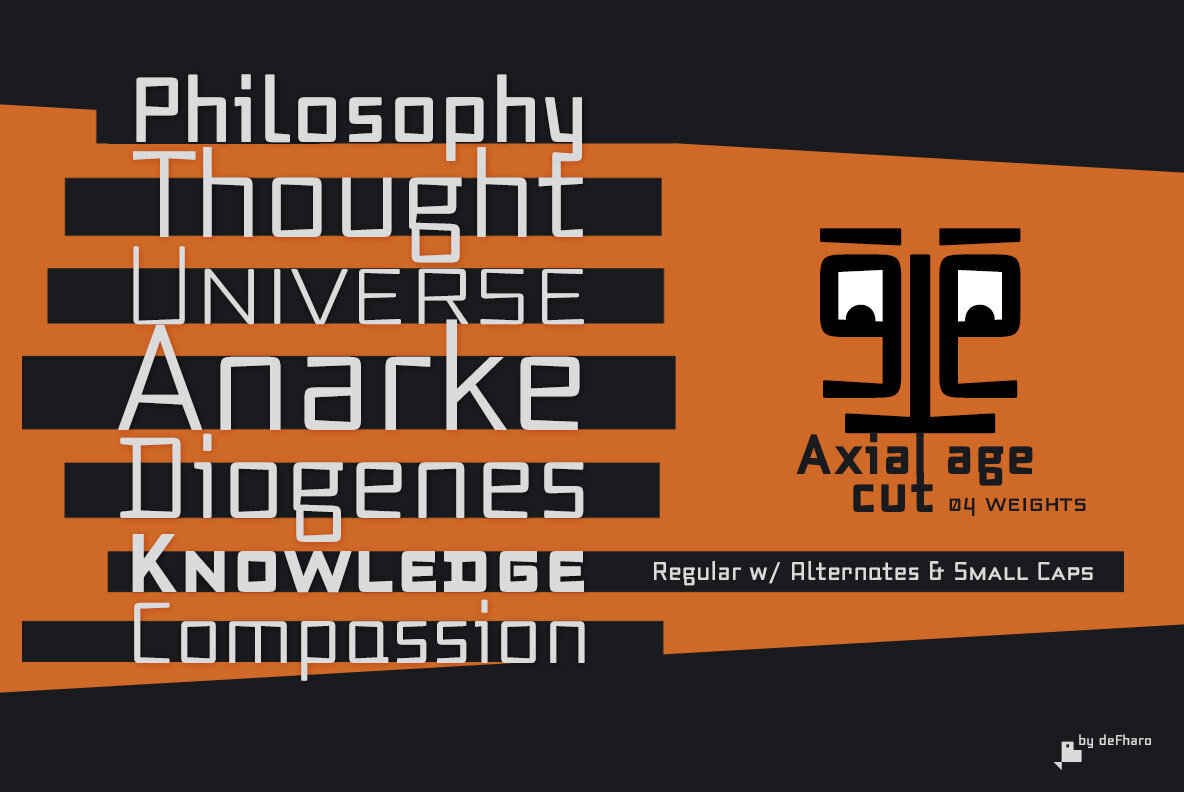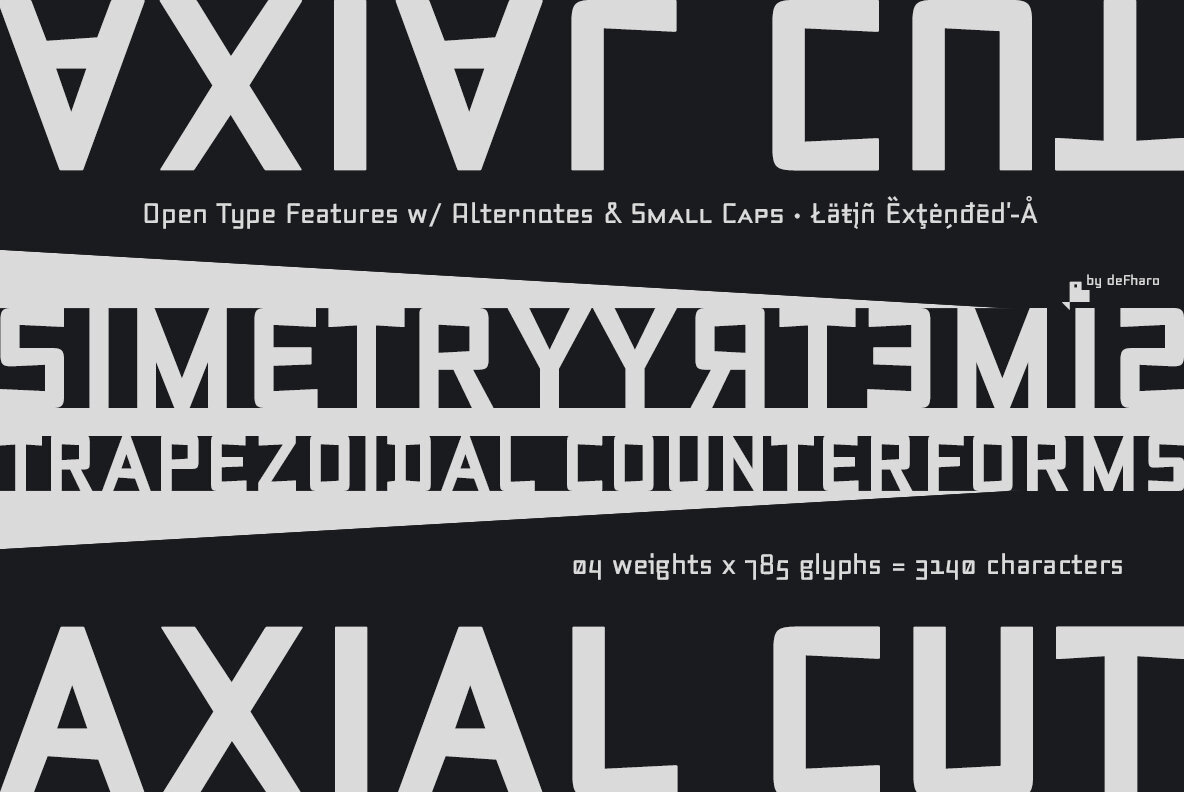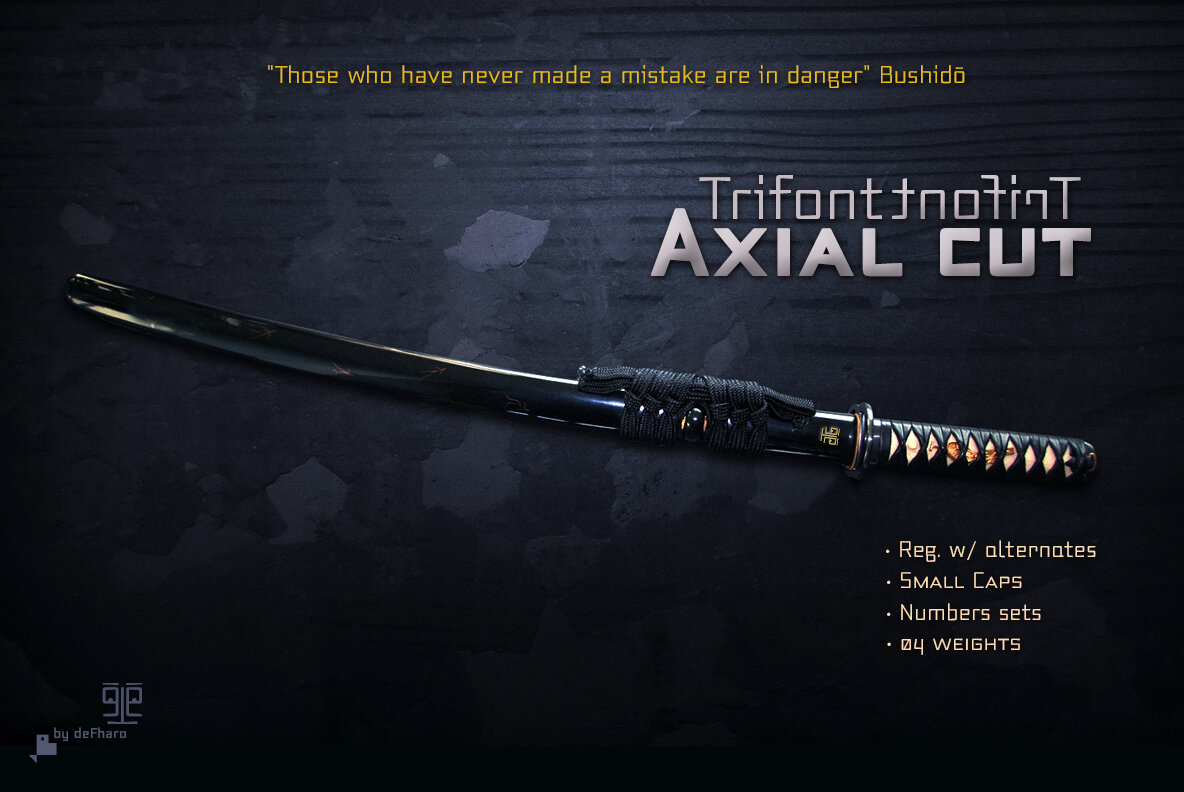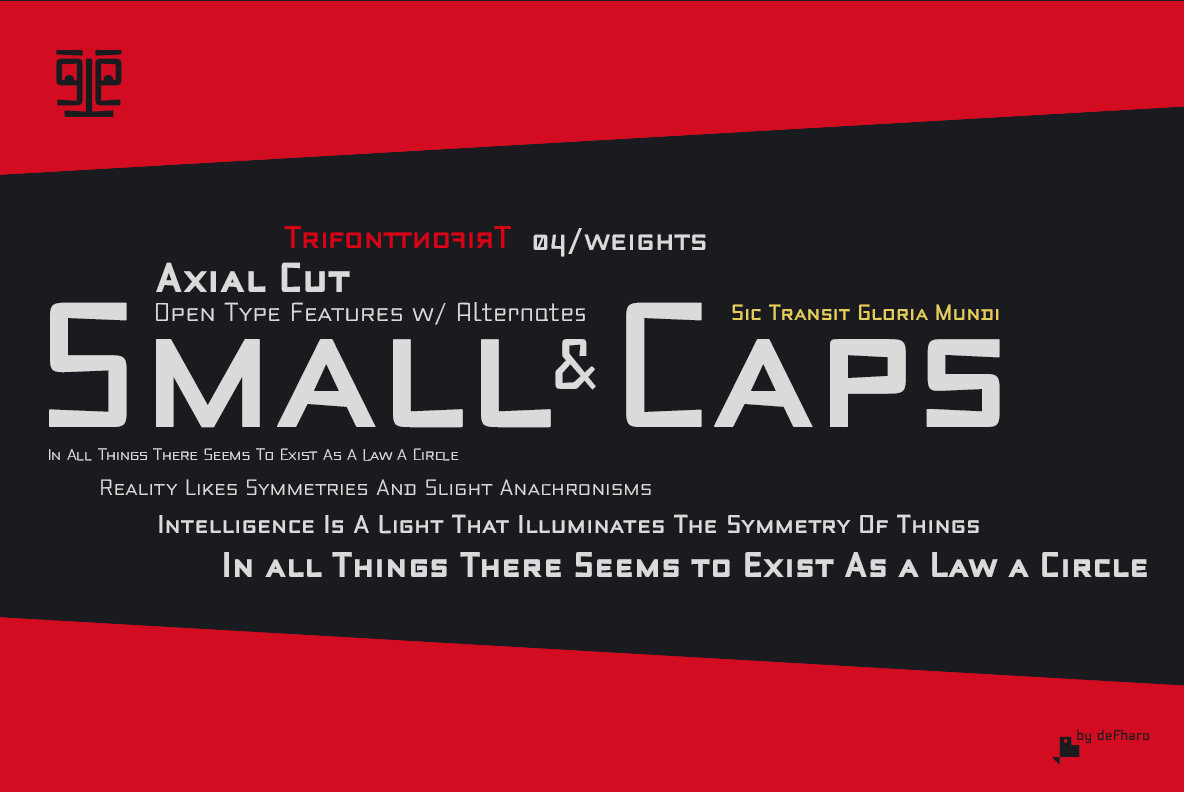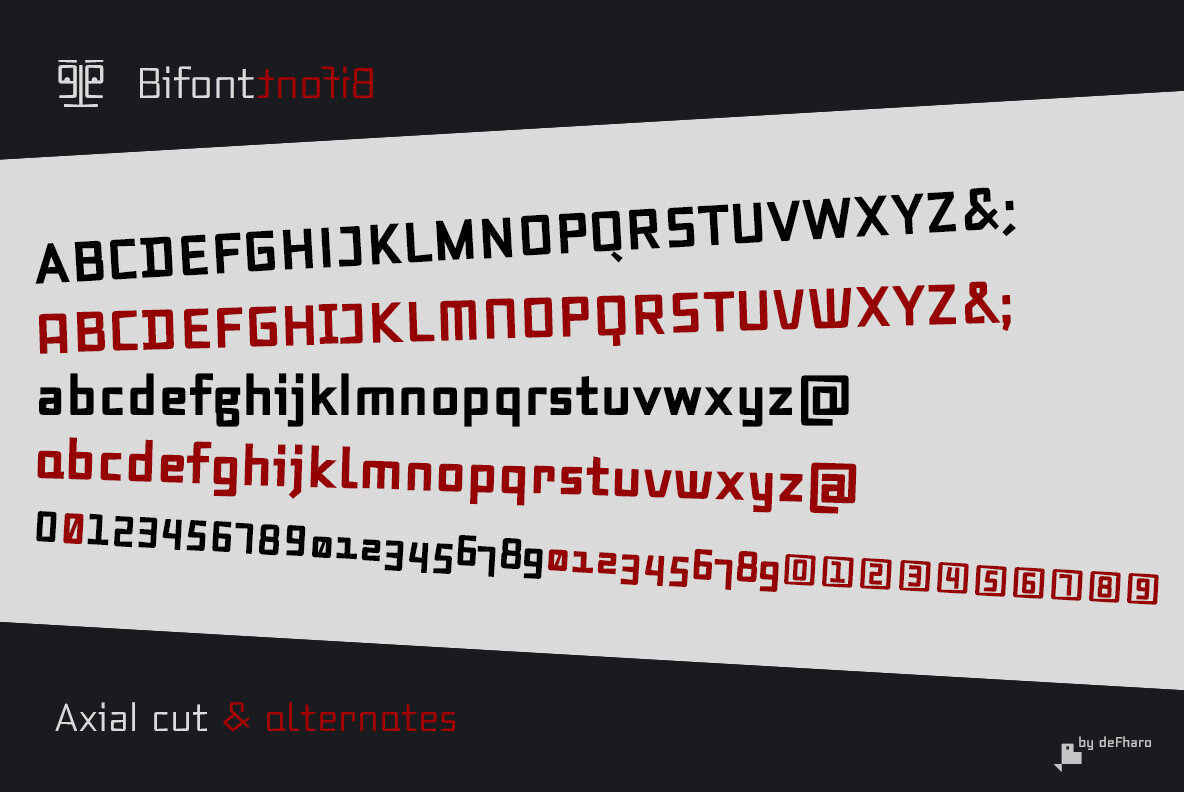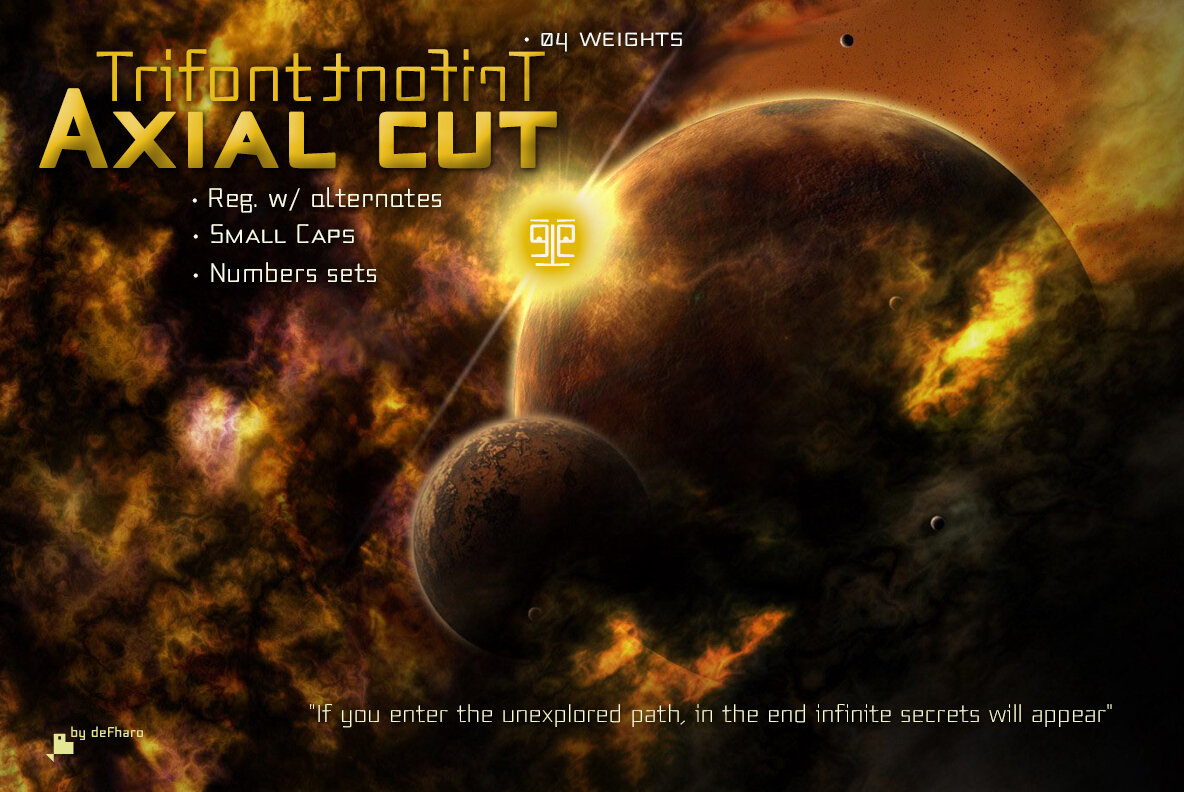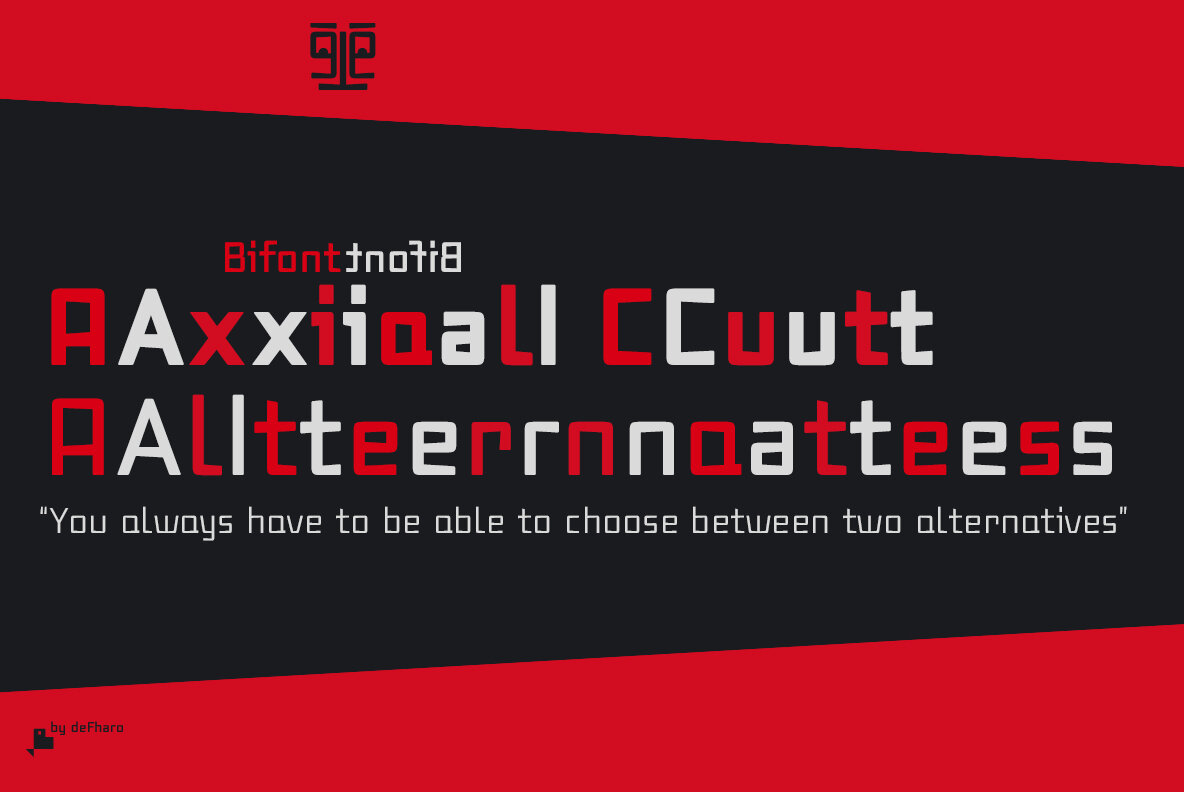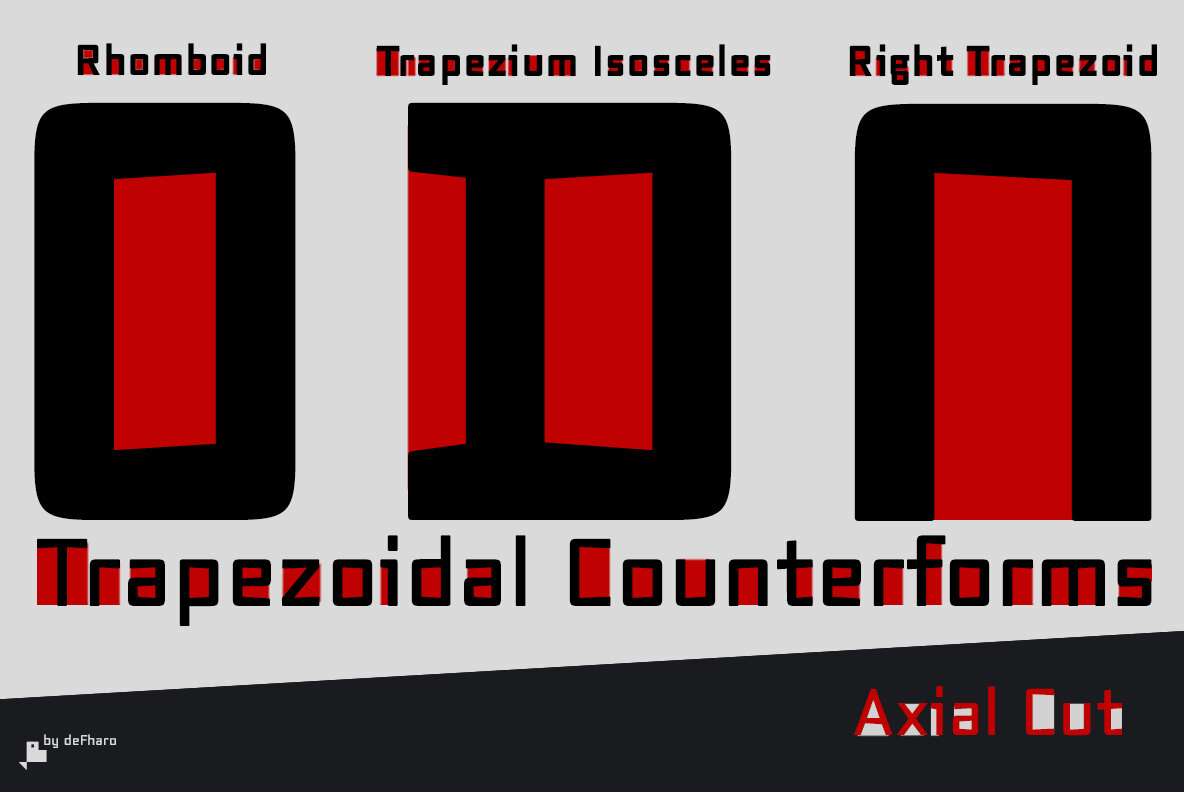
Axial Cut Font
Axial Cut is a sans serif typeface (Latin Extended-A), a contemporary, rounded evolution of geometric screen fonts, but this time the letters are built on an axial axis that results in against trapezoidal shapes, joints with reduced antlers. , which correct optical effects in small sizes to make the typography more legible, and at the same time, in large sizes it shows its original shapes. The Axial Cut typeface family is made up of four styles: Light, Regular, Medium and Bold, each with 785 characters. I have taken particular care with the metrics and dimensions of each letter or sign, with a very careful and precise kerning configuration to achieve the For maximum readability, these are fonts with slightly higher ascenders than capitals and short descenders to make it more compact. The editing possibilities and unique designs with these complex typefaces are very wide, the fonts have a complete set of uppercase letters and a lowercase set with alternative characters as well as lowercase letters and numbers in different positions (lowercase, denominators, numerals, and uppercase) that They also work as automatic fractions, they also incorporate letters in small caps and three sets of alternative numbers (Normal, Old style numbers, Square numbers), discover other alternative signs, characters and Open Type functions in the .pdf.